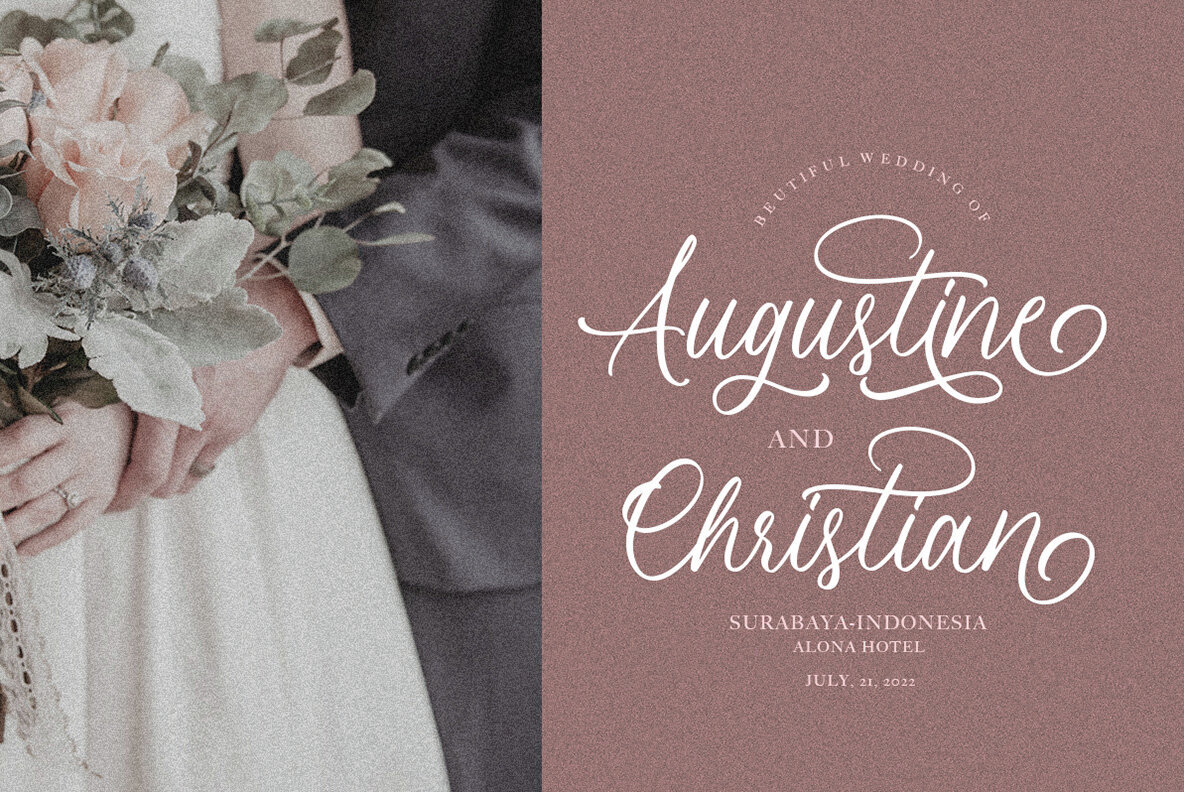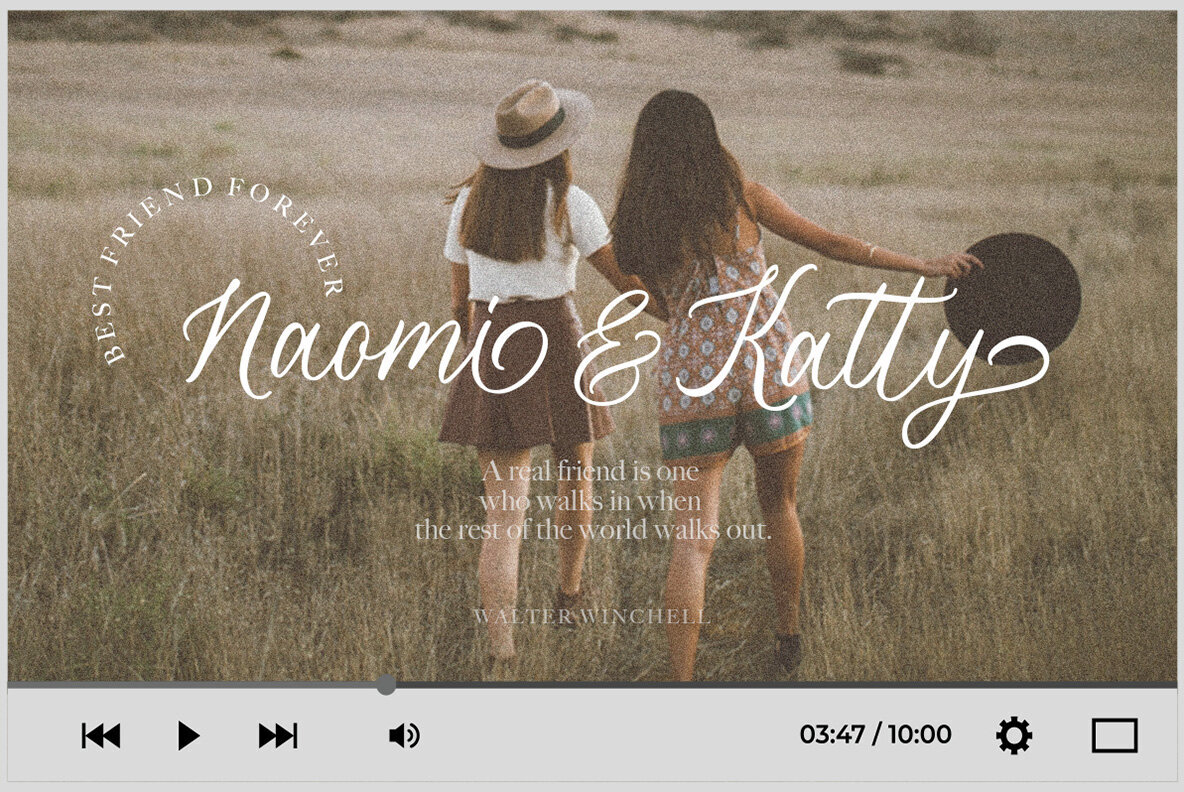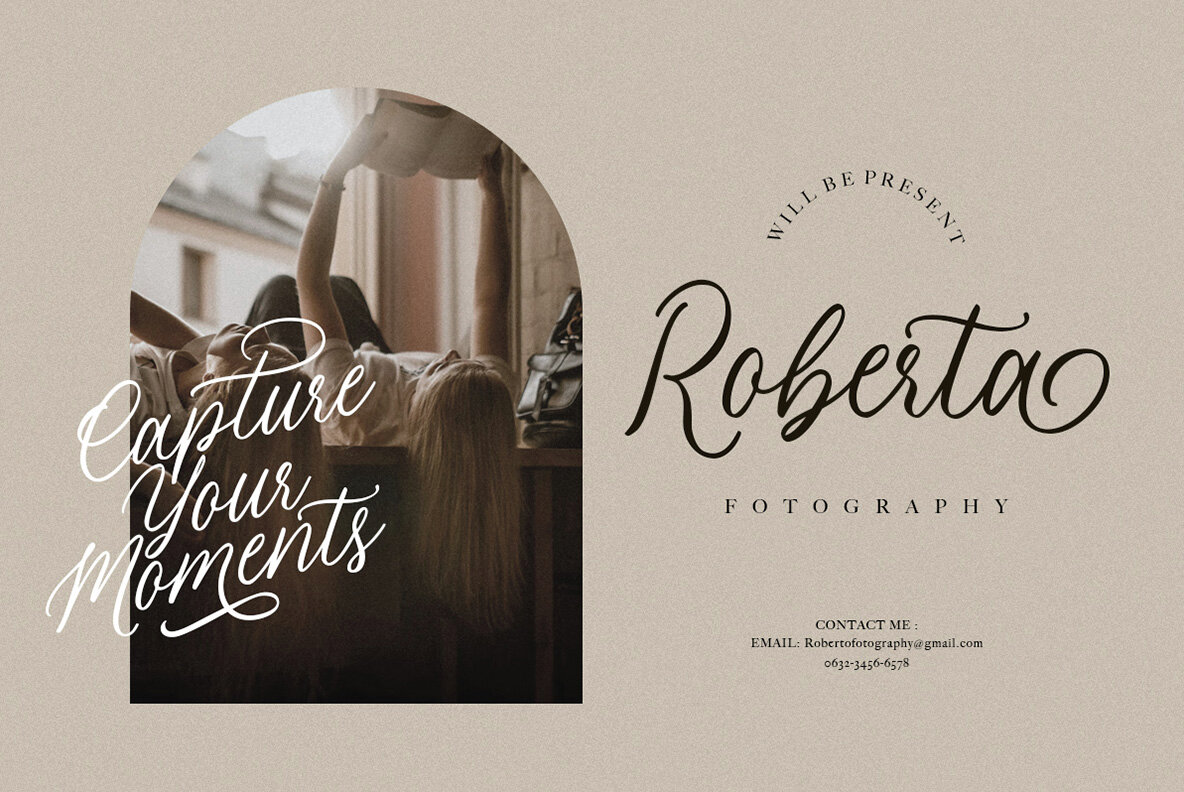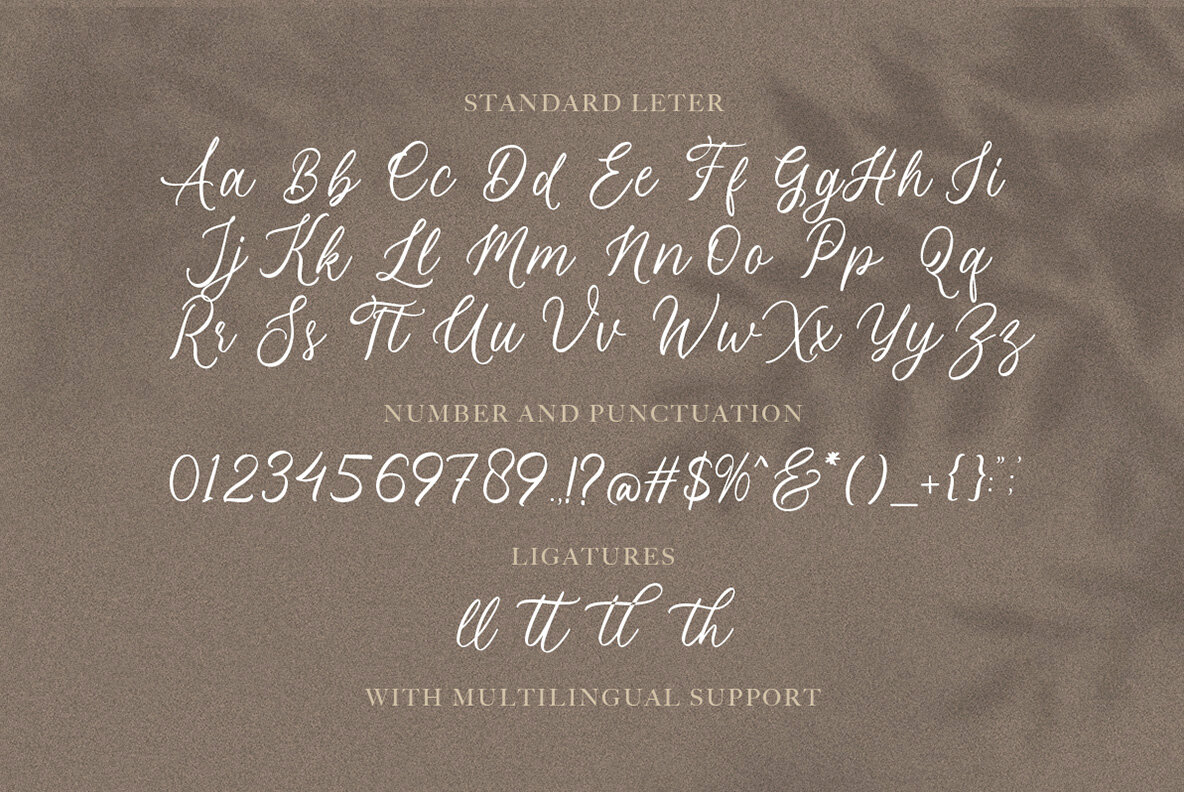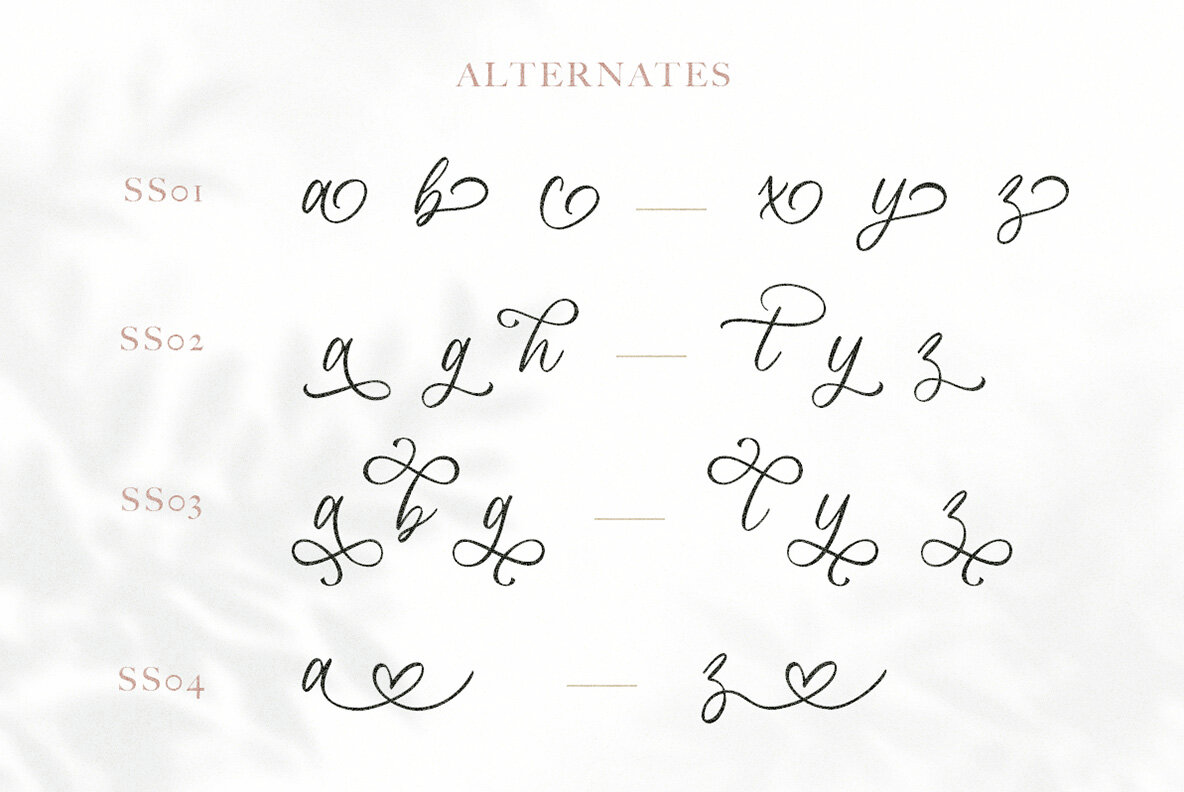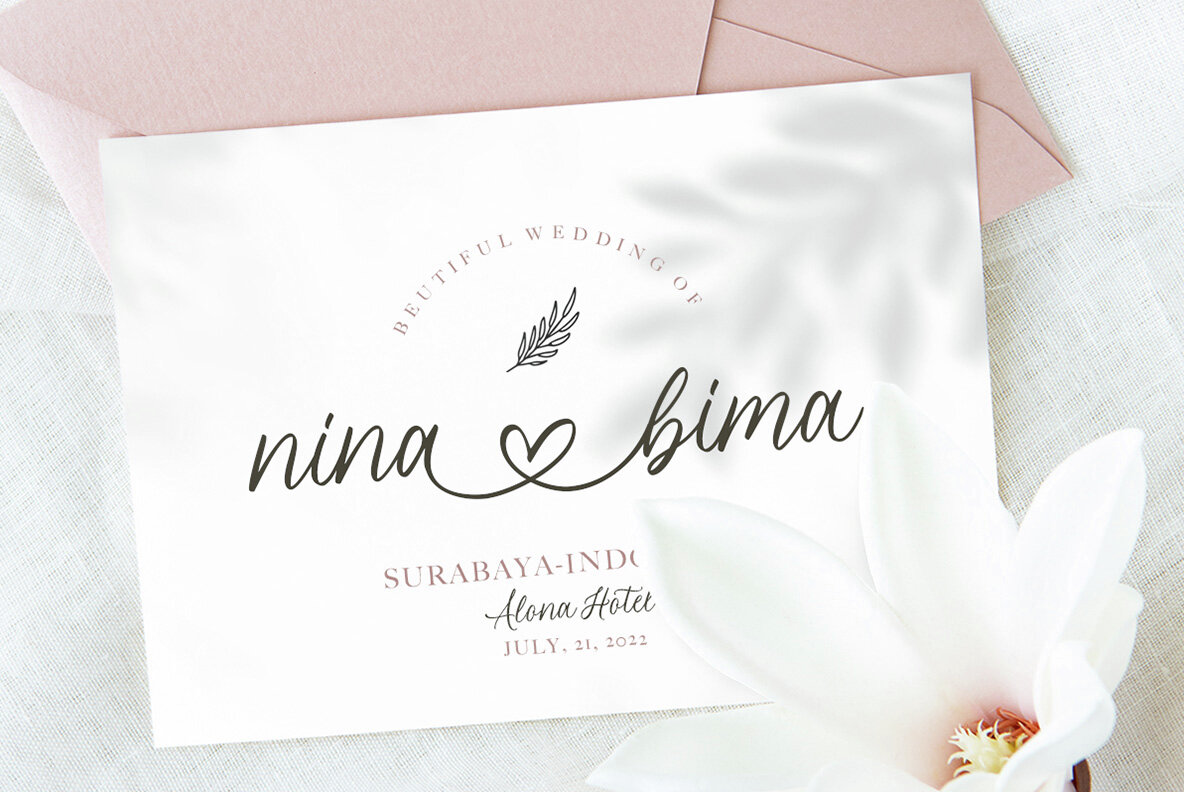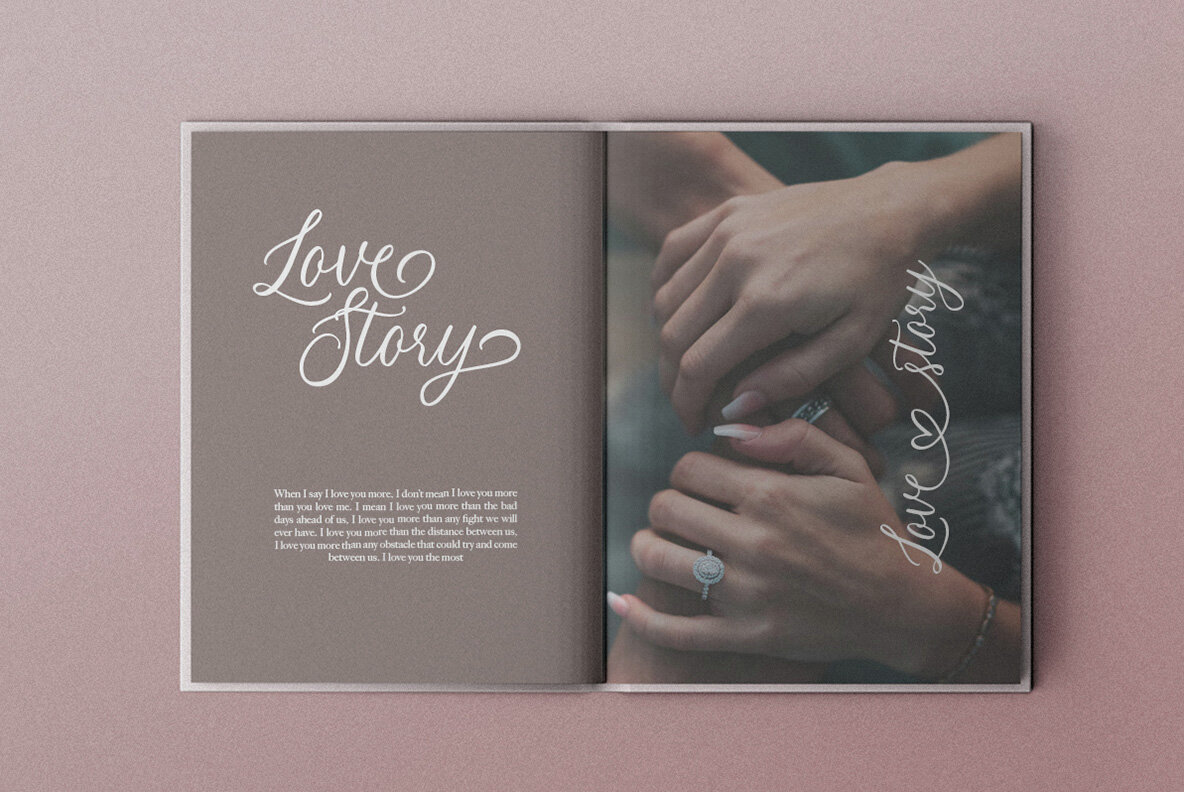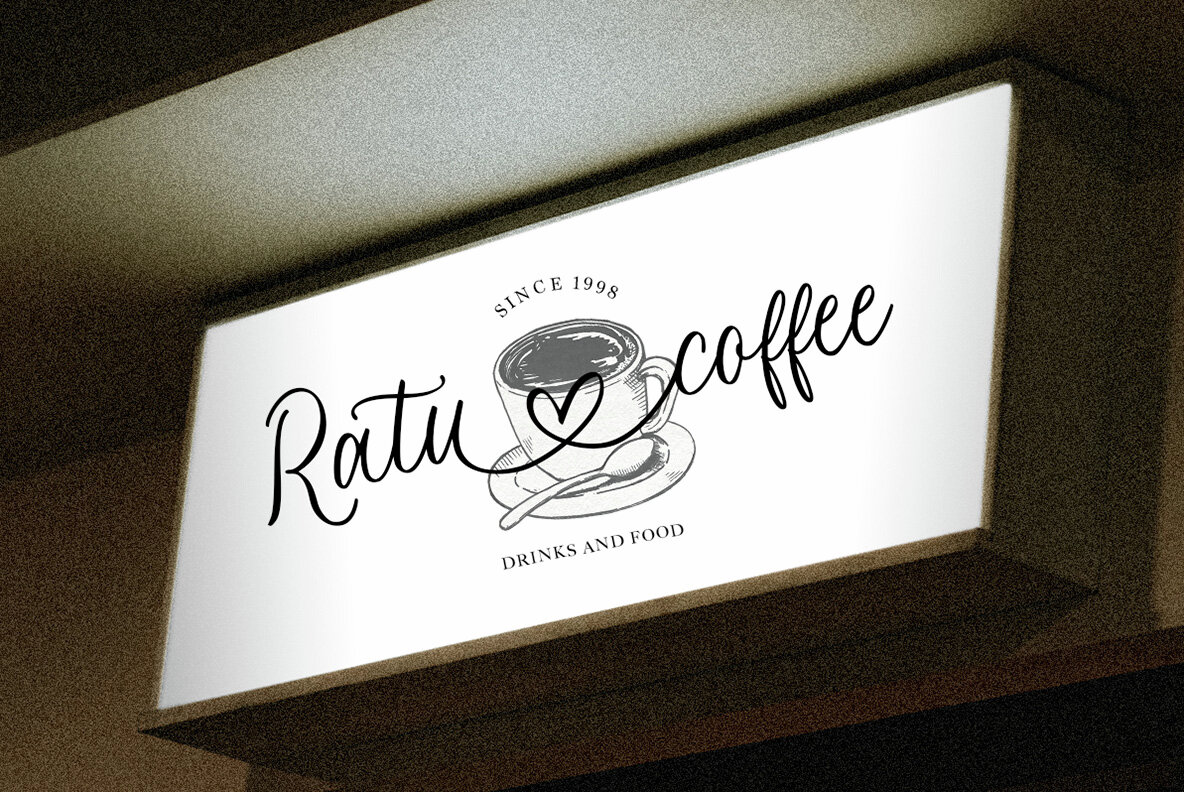
Lovely Match Font
Lovely Match Regular
Lovely Match is a chic modern font with smooth calligraphy look that can make your design more cool and fabulous. With unique and lovely alternates, this font can make your project looks sweet and elegant. You can use Lovely Match font for branding, logo, invitation, magazine, website, book, and more! Lovely Match also support Multi Language.